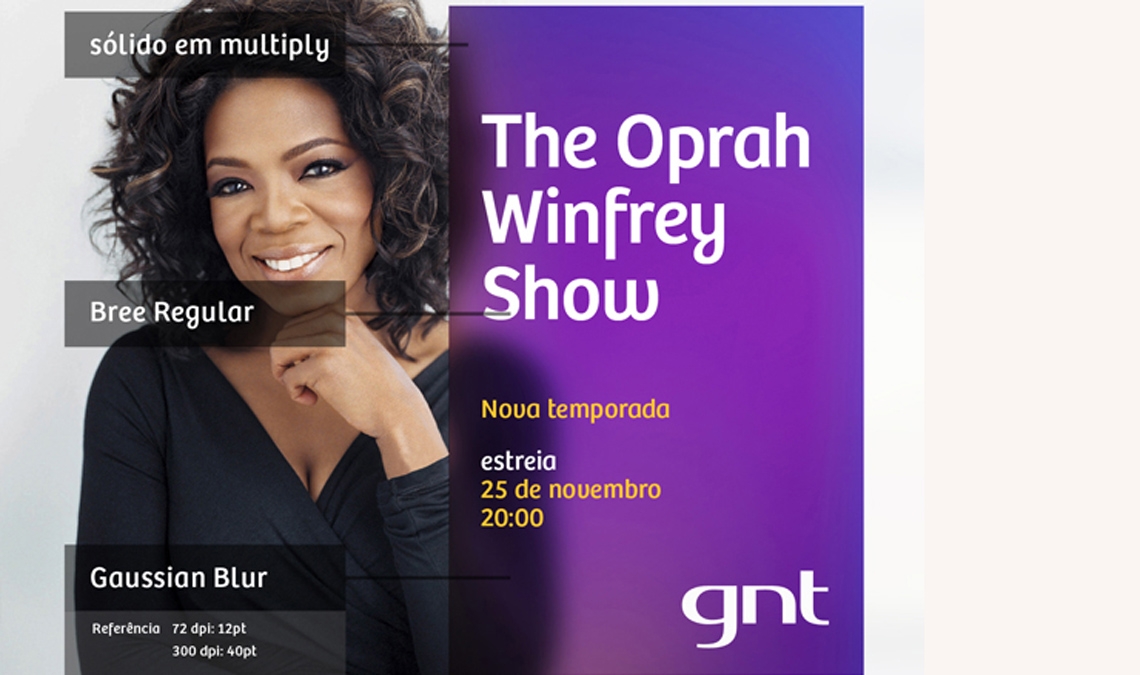
GNT
Bree in use in the Brazilian channel GNT
The Brazilian GLOBOSAT Network channel has adopted a new programming structure as part of its rebrand. Contrasting to the clean and elegant 2008’ on-air look, the new GNT channel identity should be designed to get closer to Brazilian modern woman. The in-house creative team was commissioned to develop a whole new design image more in-tune with the audience of “AB-consumerclass-woman-30-years-old-professional-contemporary-and-mother”. They chose Bree as their main identity typeface. Creative director Ricardo Moyano says: “The typeface we choose had to follow the same premises. In this sense, Bree typeface suited on the general concept in a very elegant way. The rounded shapes suggest all femininely we expected to present. Also when composed in sentences and headlines it flows as a handmade calligraphy. It looks at same time unpretentious and sophisticated; exactly as GNT women audience wants to be.”